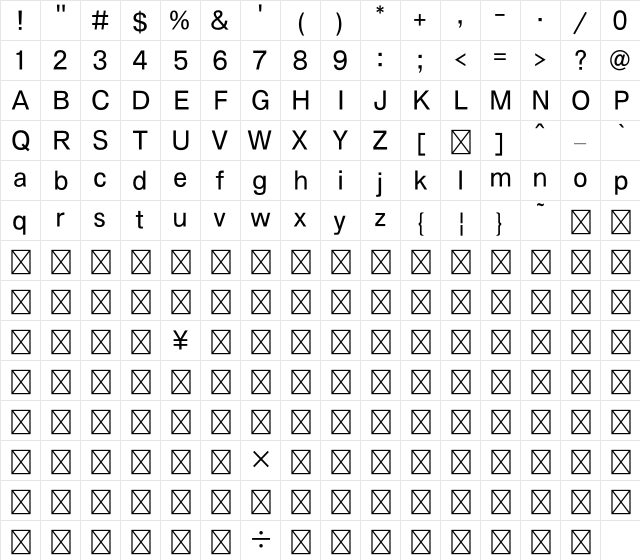
Ro Yukinari Std GB
Style: GB
Foundry: TypeBank Co., Ltd.
Designer: Shintaro Ajioka
Ro Yukinari Std Family
Design Context for Ro Yukinari Std
Ro Yukinari Std is a composed and adaptable typeface that performs quietly and consistently across a wide range of design contexts.
Who designed the Ro Yukinari Std GB font?